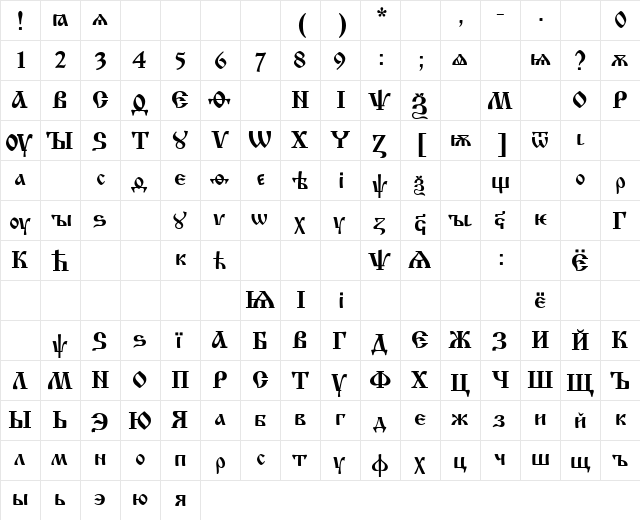
Izhitza Regular
Design Context for Izhitza Typeface
Izhitza takes a measured approach to typography — its balanced proportions and neutral character make it a reliable workhorse for both digital and print work.